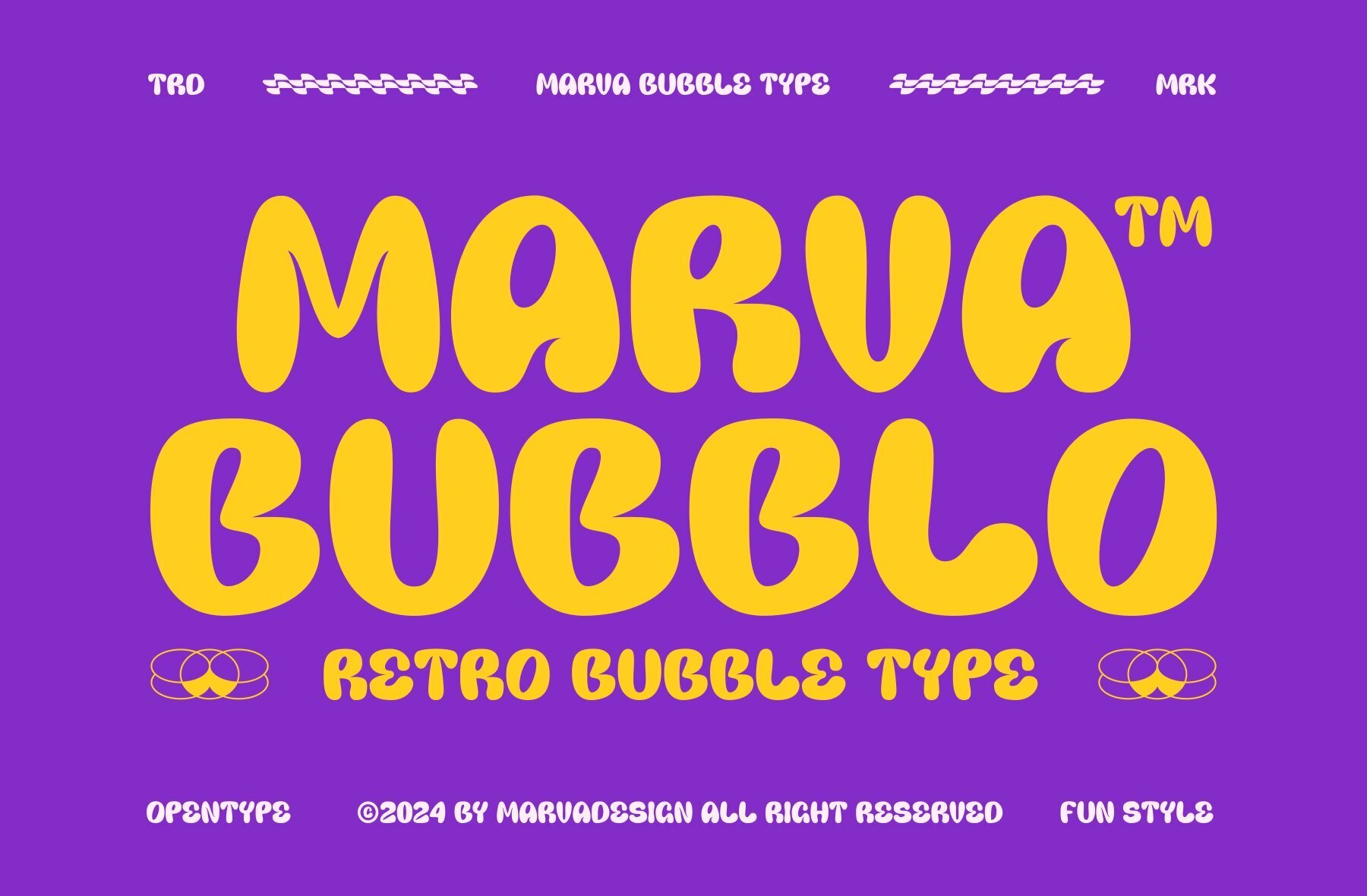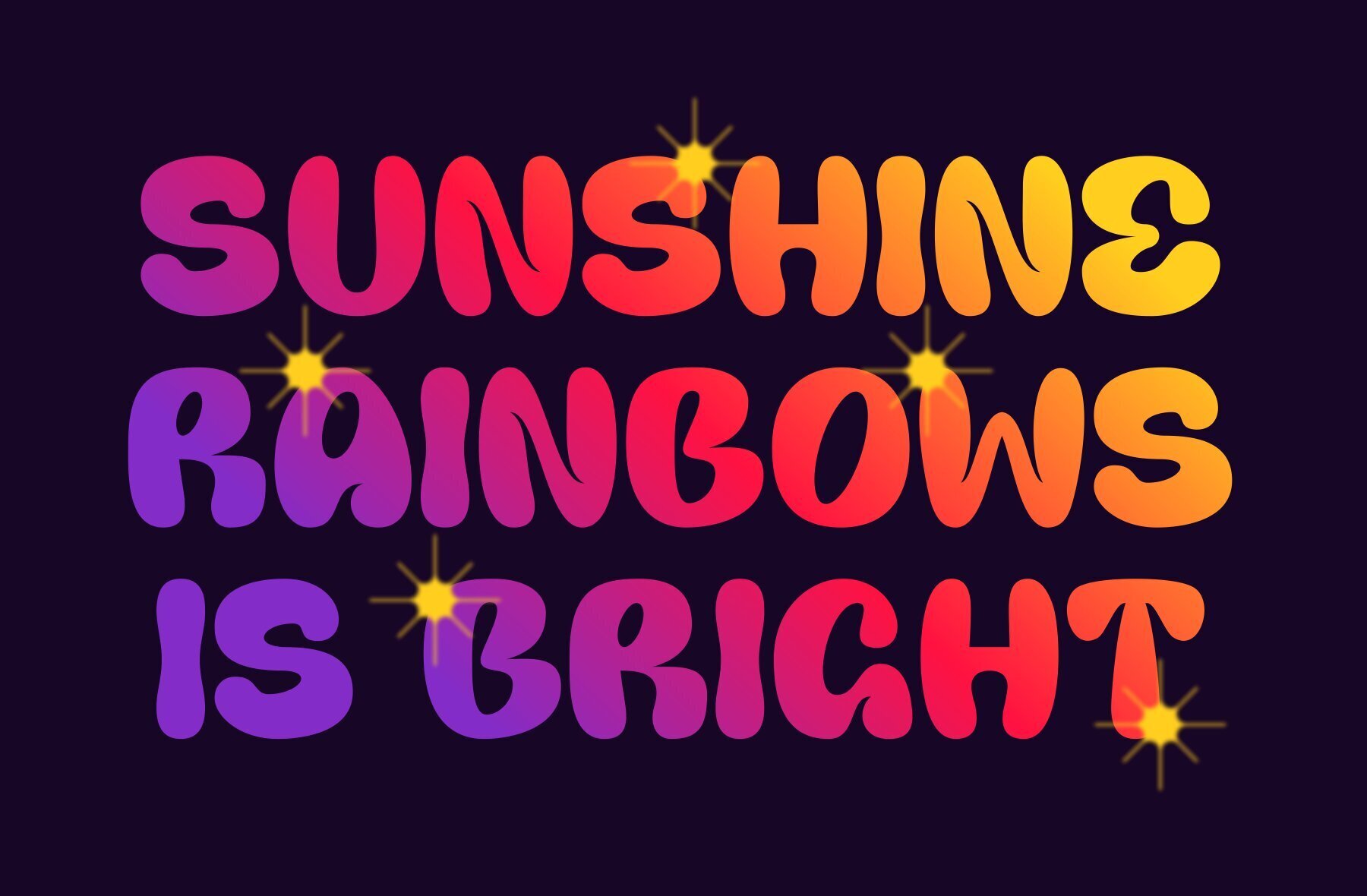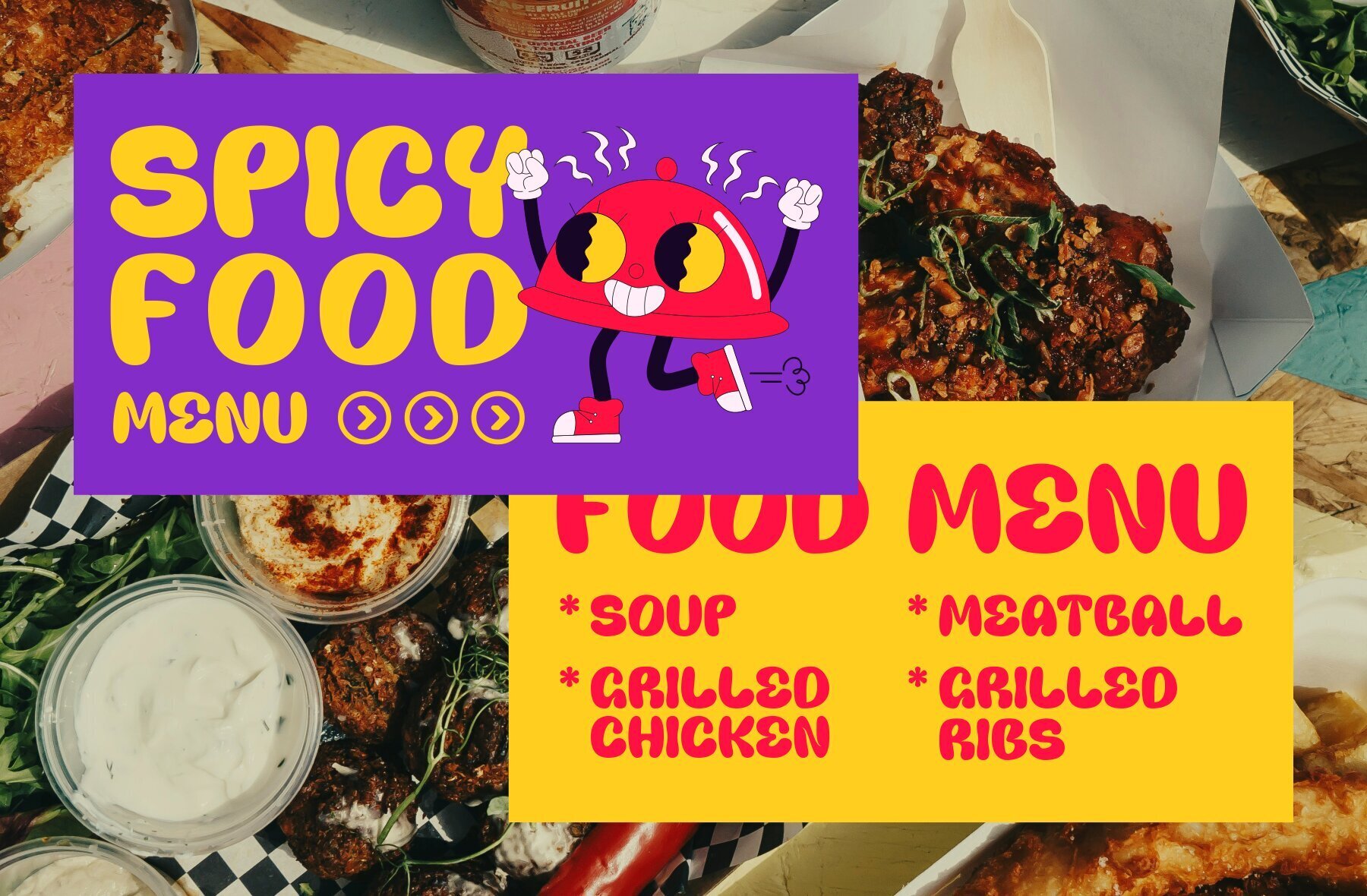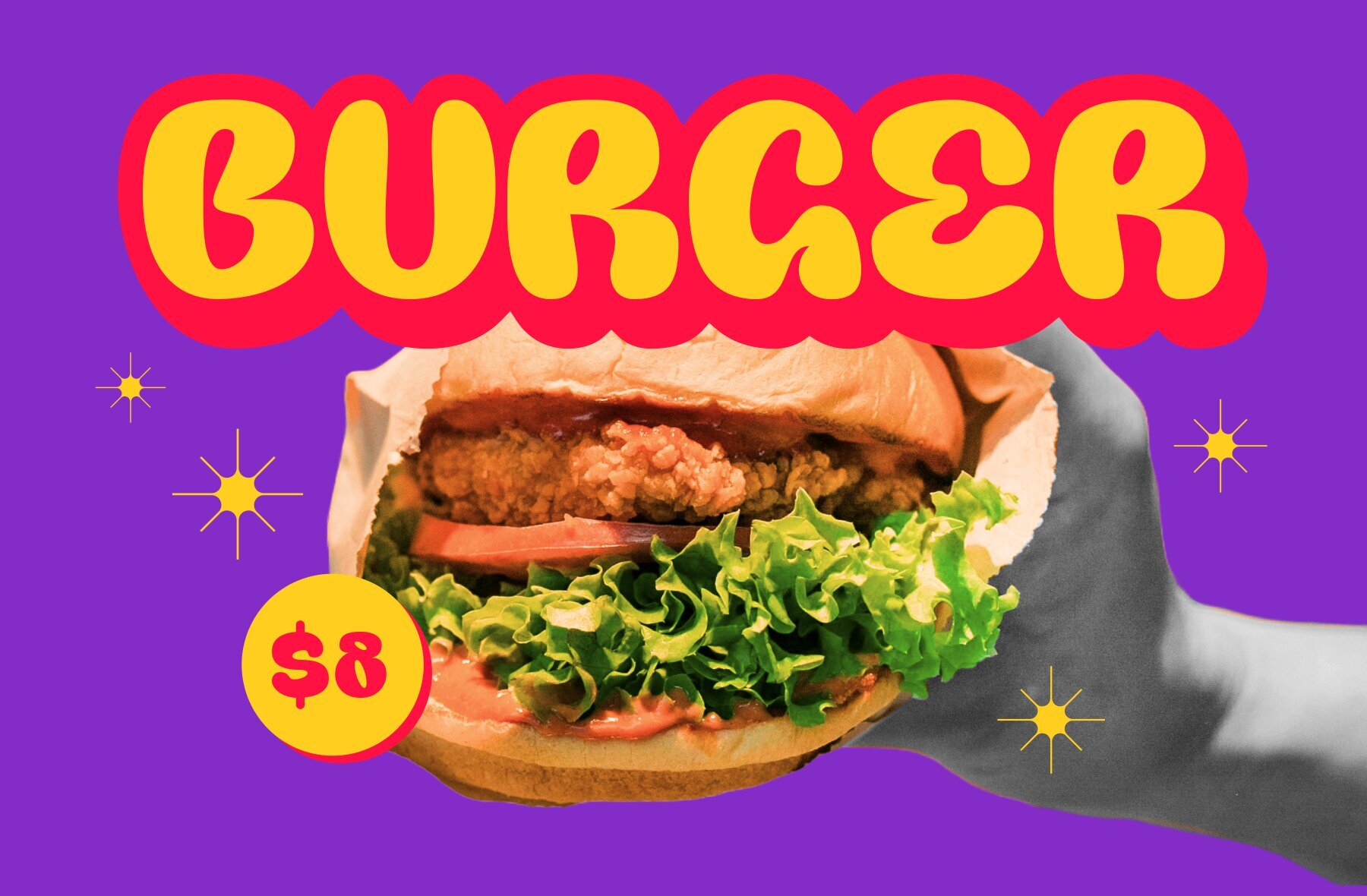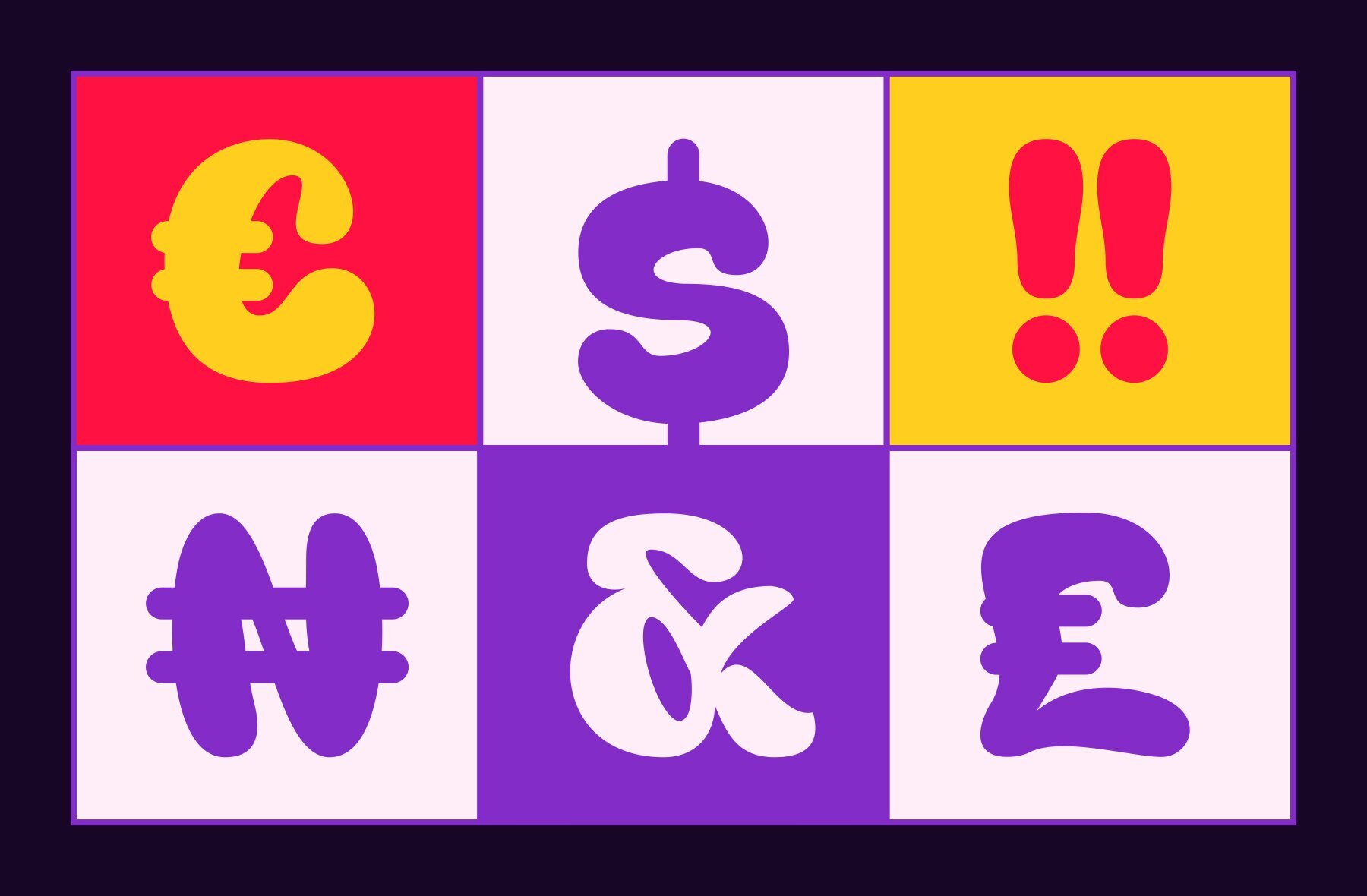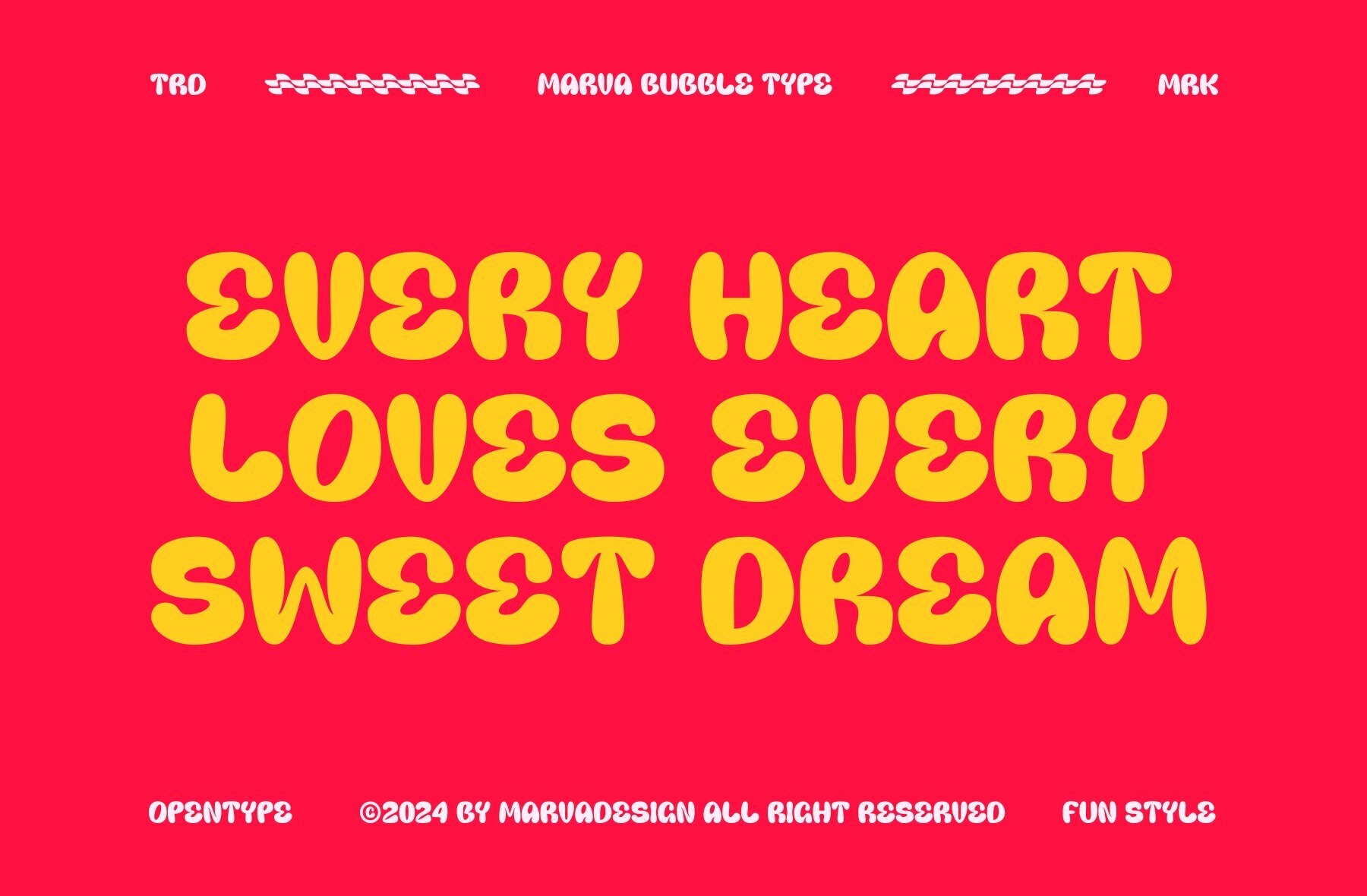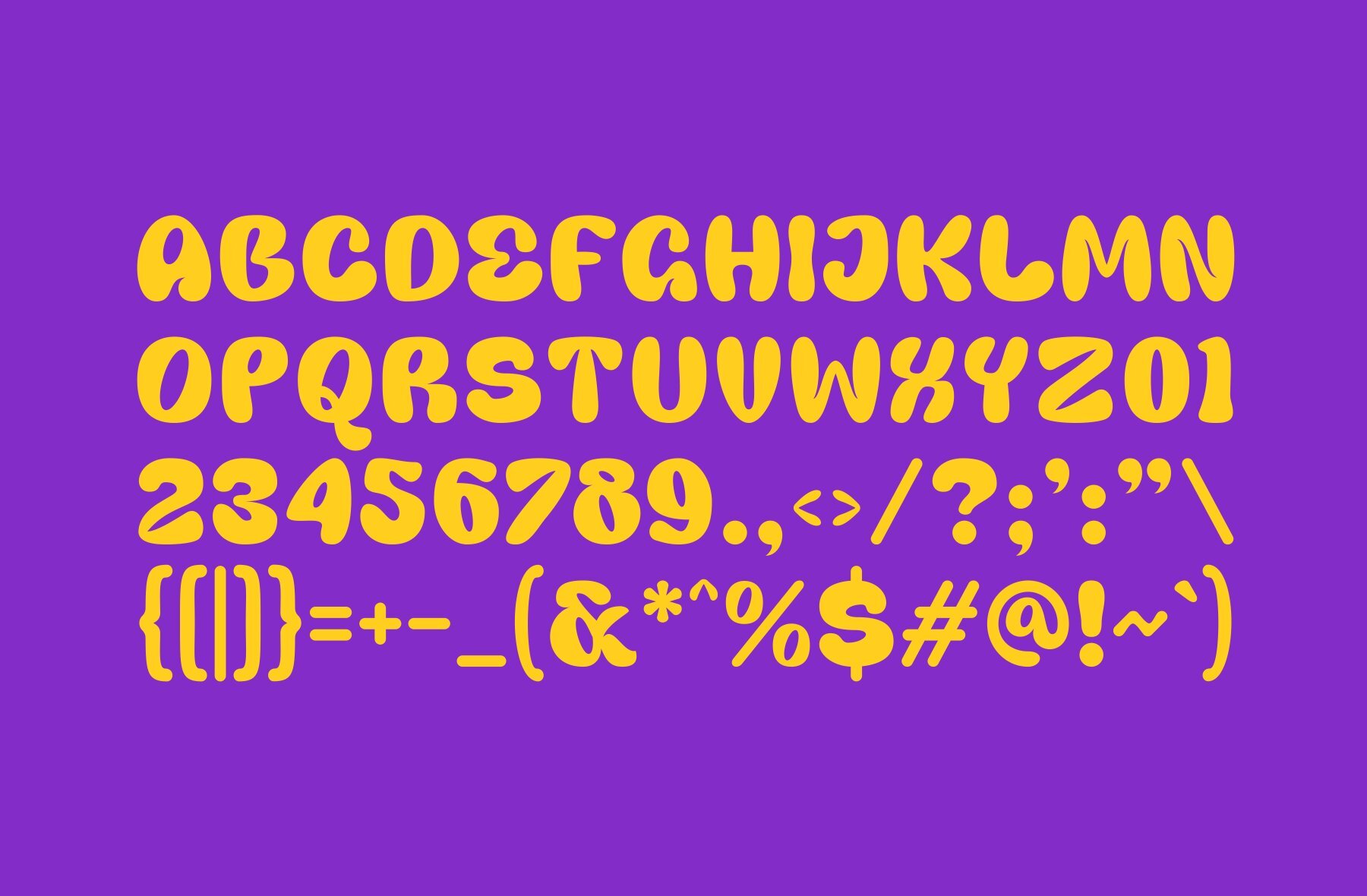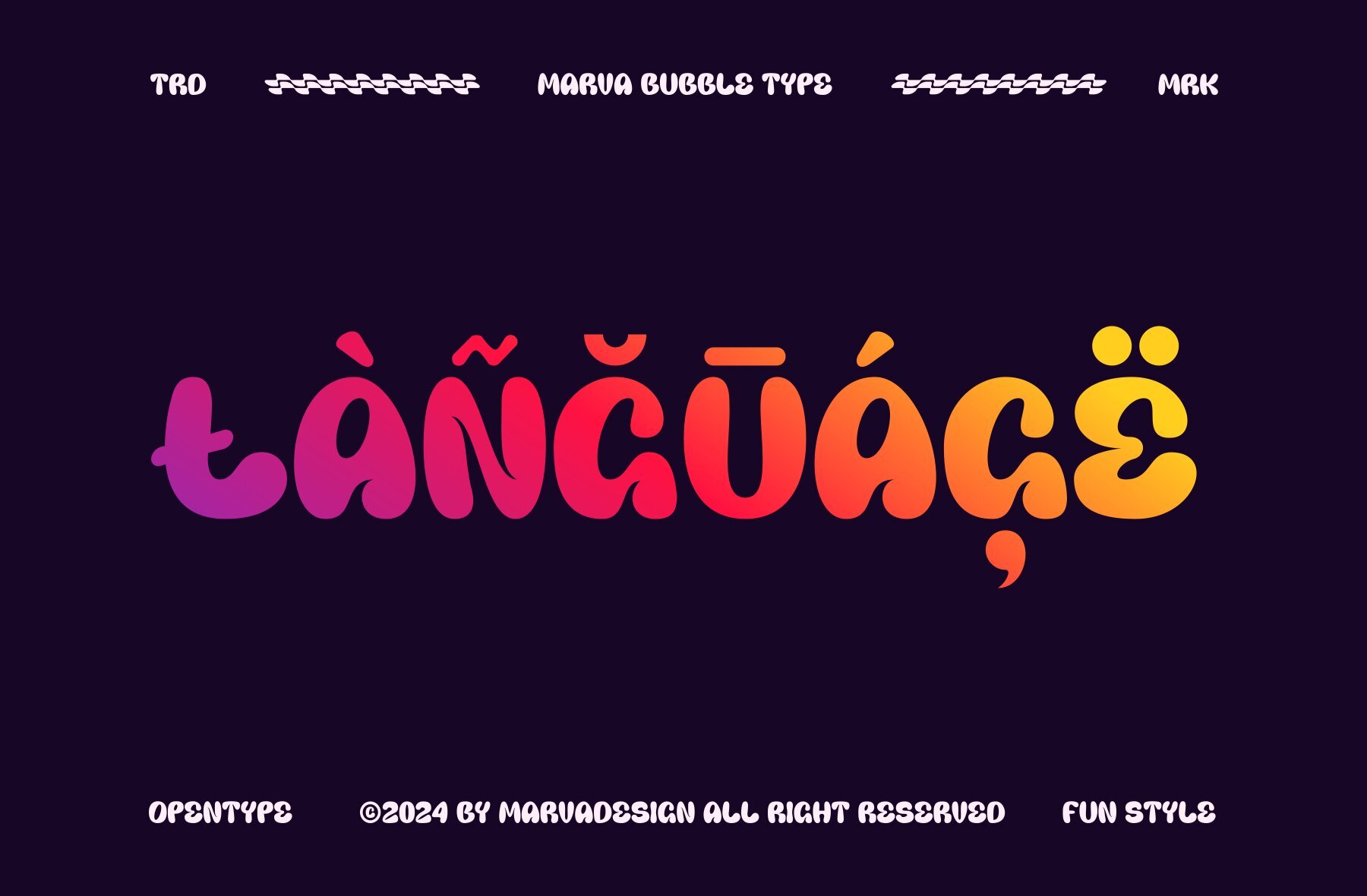
Marva Bubblo Font
Marva Bubblo
Introducing Marva Bubblo is a groovy retro font with a bold bubble style, blending nostalgia with modern flair. Its thick, rounded characters and distinctive shapes make it perfect for eye-catching headlines, logos, posters, and branding that demand a playful yet sophisticated look. Ideal for adding a vibrant and memorable touch to various design projects.